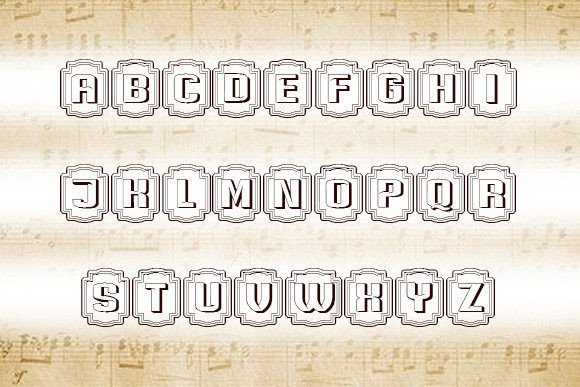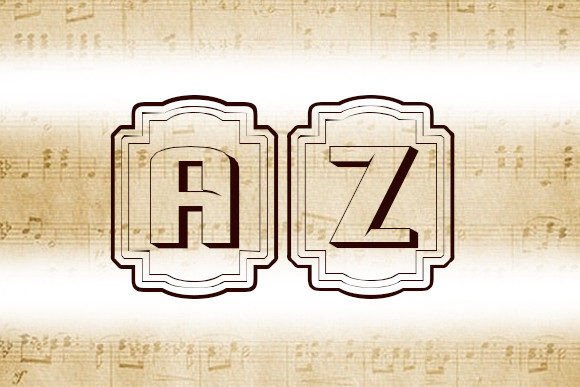
Introduction to Fisionomica Font
Have you ever stared at a blank canvas, feeling the weight of creativity on your shoulders? You know, that moment when you’re searching for the perfect font to bring your vision to life. I’m sure you’ve been there too. As designers, we’re always on the lookout for that special something that will elevate our work and make it truly unforgettable.
That’s where the Fisionomica Font comes in – a stunning capitals font that’s sure to add a touch of sophistication to your designs. With its high-quality design and transparent background, it’s the perfect addition to any creative project. And the best part? You can download it for free, making it an invaluable resource for designers of all levels.
Whether you’re working on a personal project or a client-based design, the Fisionomica Font is a valuable asset that’s sure to take your work to the next level. In this article, we’ll delve deeper into the world of this incredible font and explore why it’s a must-have for any design enthusiast.
Key Features of Fisionomica Font
- Unique characteristics include intricate details and subtle texture, making it perfect for creating visually striking designs.
Honest Review: Fisionomica Font
I recently came across the Fisionomica Font, and I must say it’s been a delightful addition to my design resource collection. ✨ The font offers a unique blend of modern and vintage elements, making it perfect for creative projects that require a touch of sophistication.
One of the standout features of the Fisionomica Font is its high quality and versatility. It comes in a range of weights, from light to bold, allowing you to customize your design to suit your needs. The font also features a transparent background, making it easy to layer and manipulate in your design.
Here are some of the key benefits of the Fisionomica Font:
- High-quality design suitable for creative projects
- Wide range of weights for customization
However, I did encounter a few limitations with the Fisionomica Font. ⚠️ The font may not be suitable for all types of projects, and it may require some experimentation to get the desired look. Additionally, the font may not be as extensive as some other design resources on the market.
Overall, I’m impressed with the Fisionomica Font, and I would definitely recommend it to designers looking for a high-quality, creative font for their projects.
The Fisionomica Font is suitable for a wide range of creative projects, including logos, business cards, brochures, and presentations. It’s also a great choice for designers who want to create high-quality designs with a touch of elegance and sophistication.